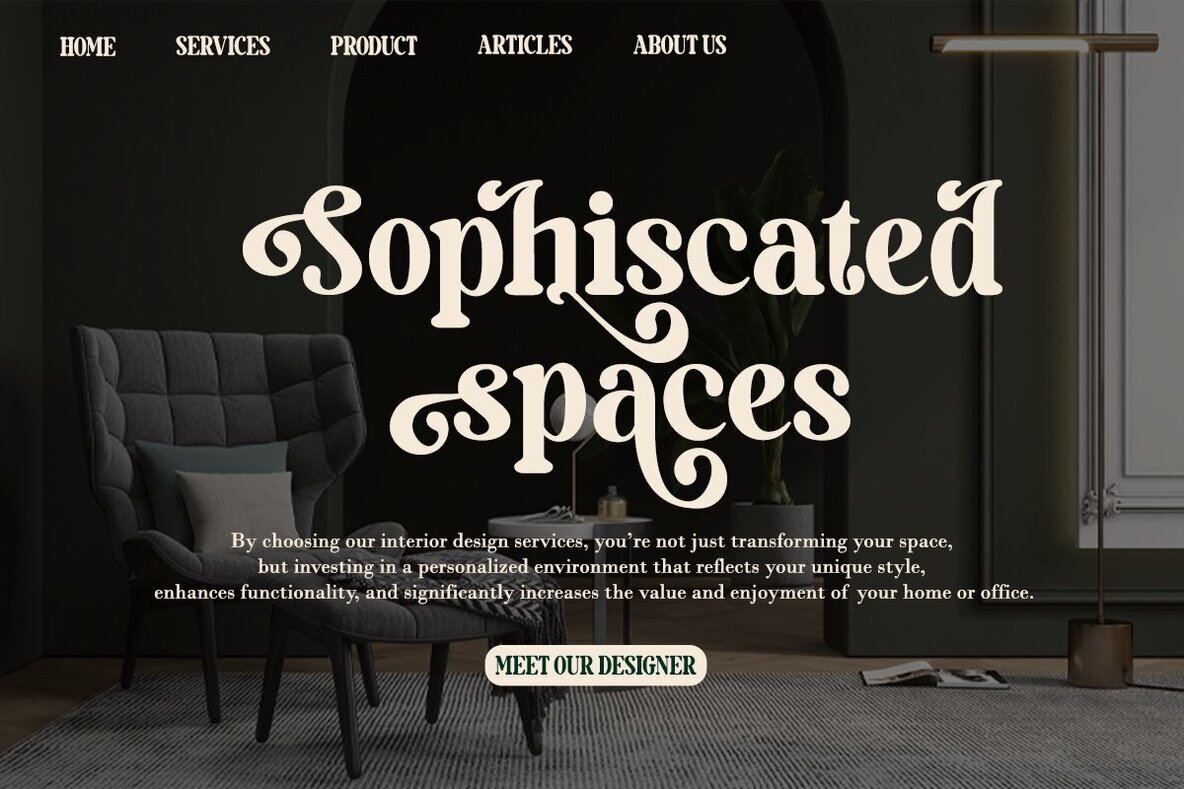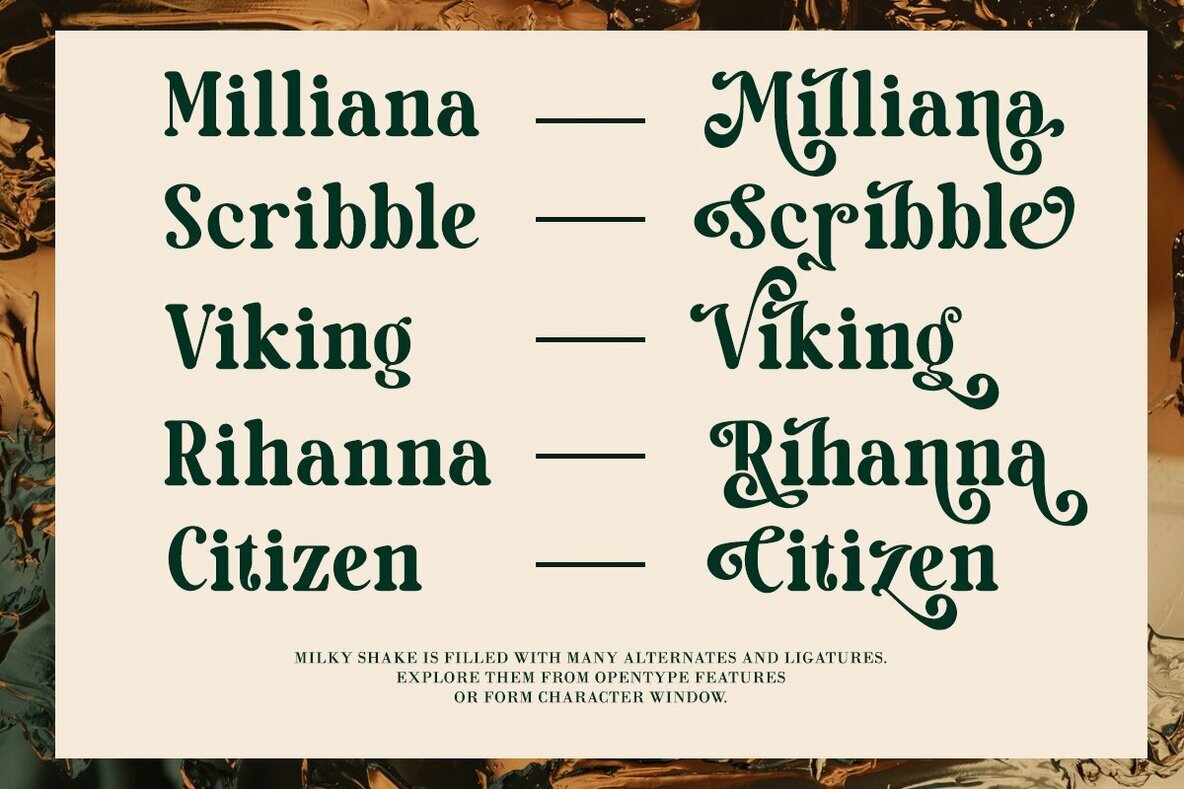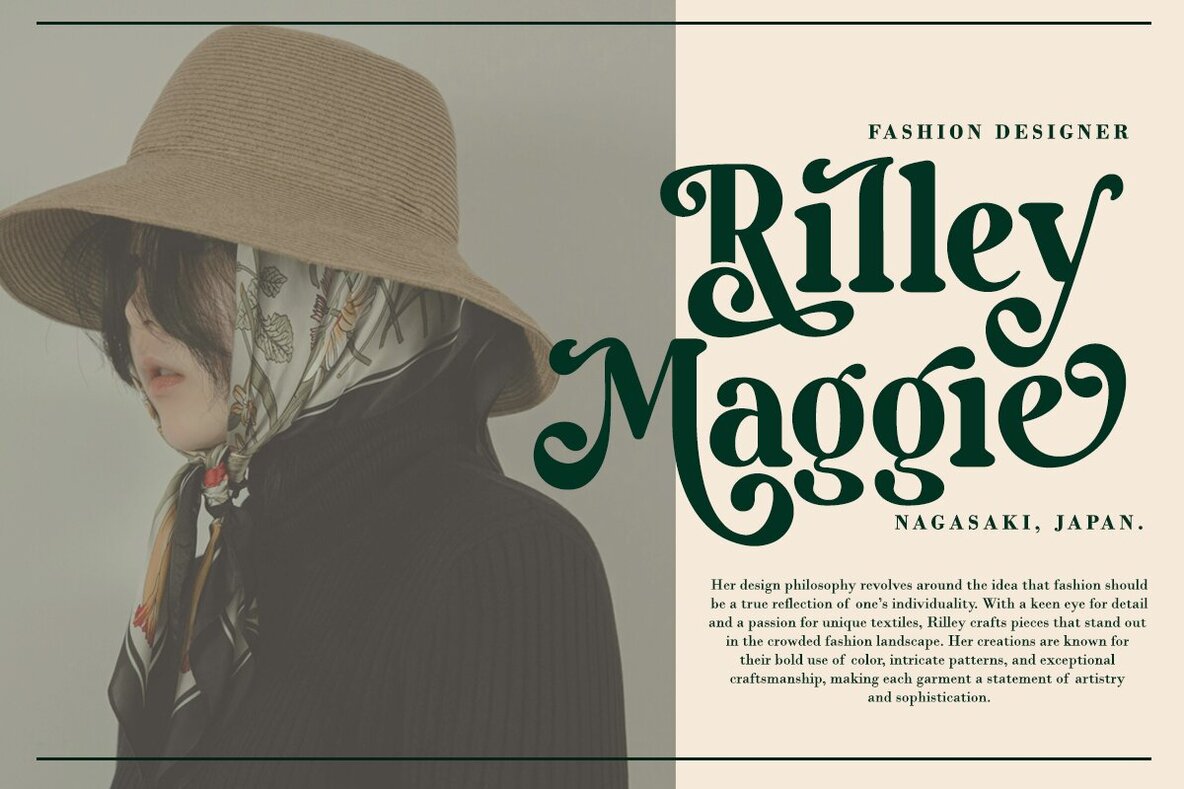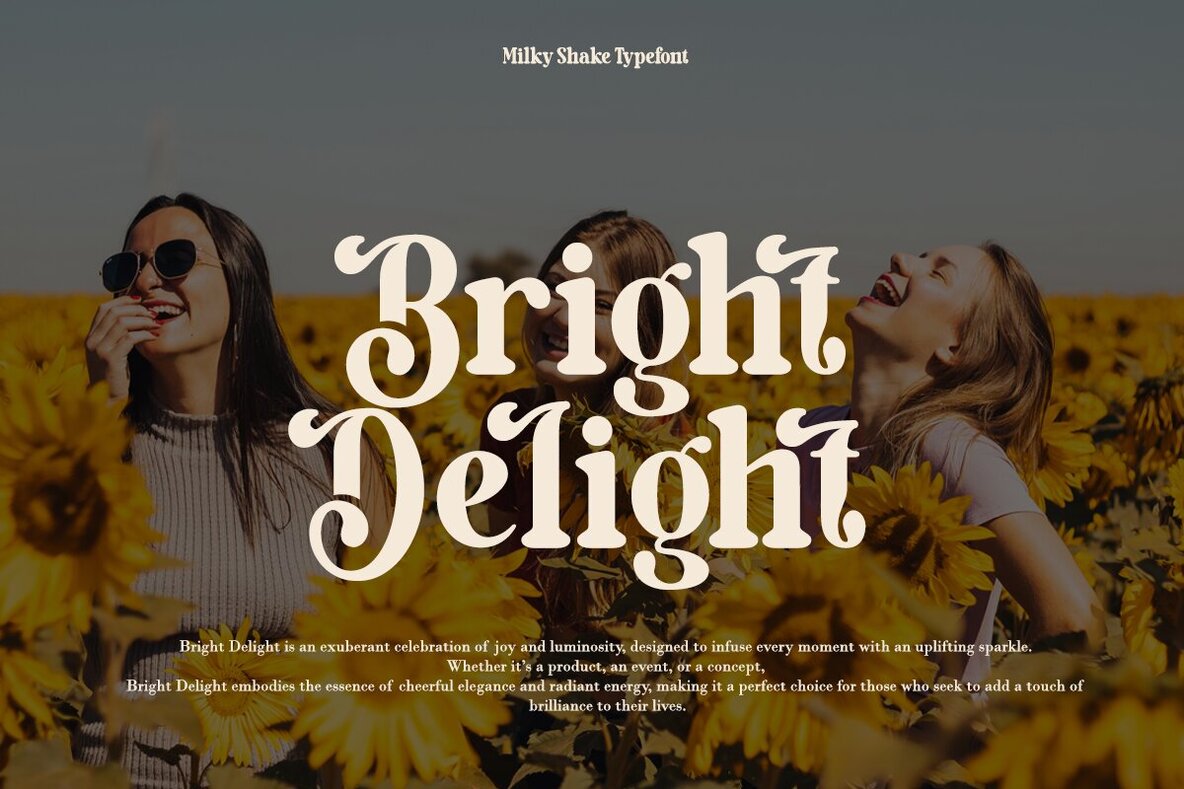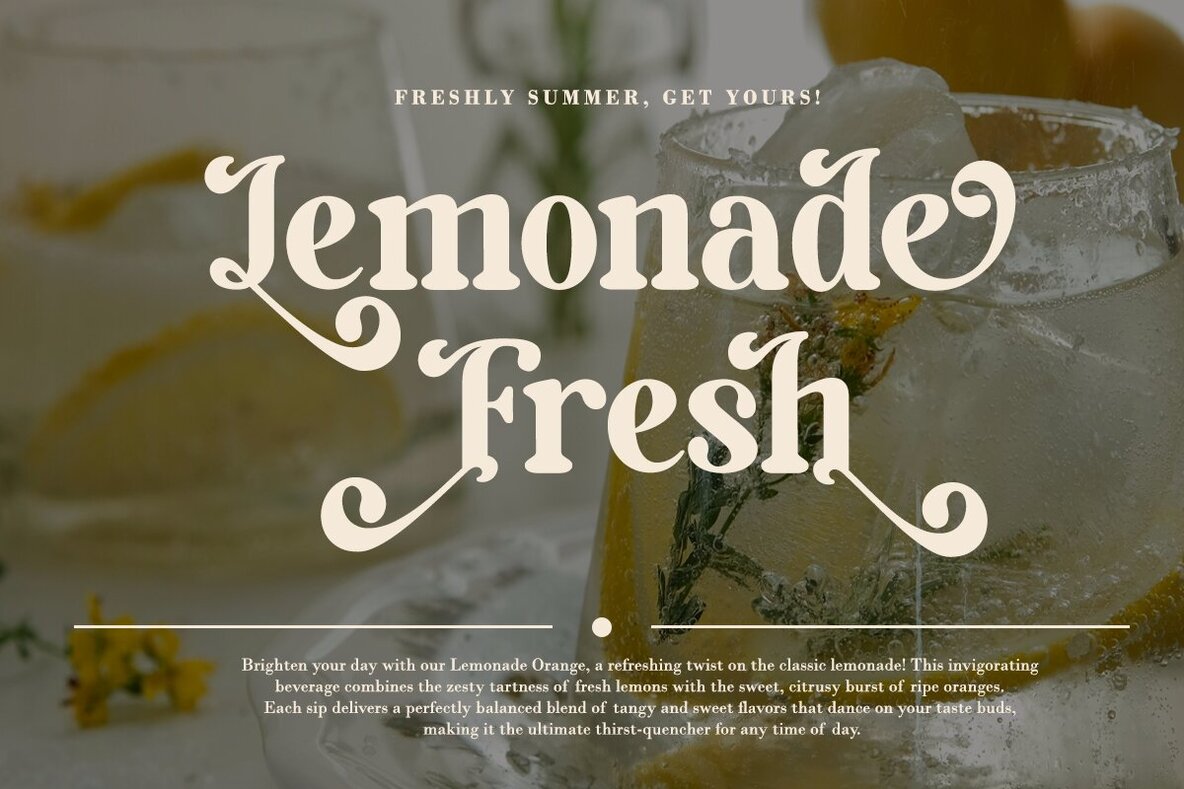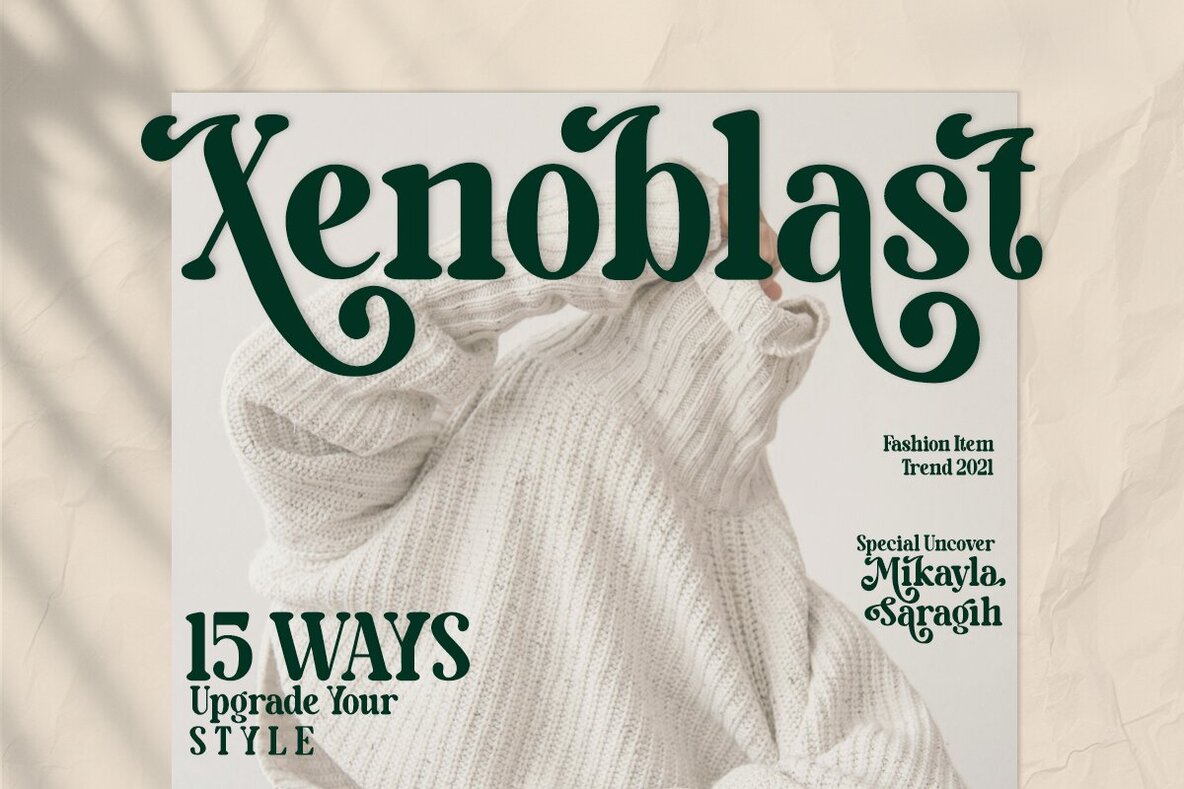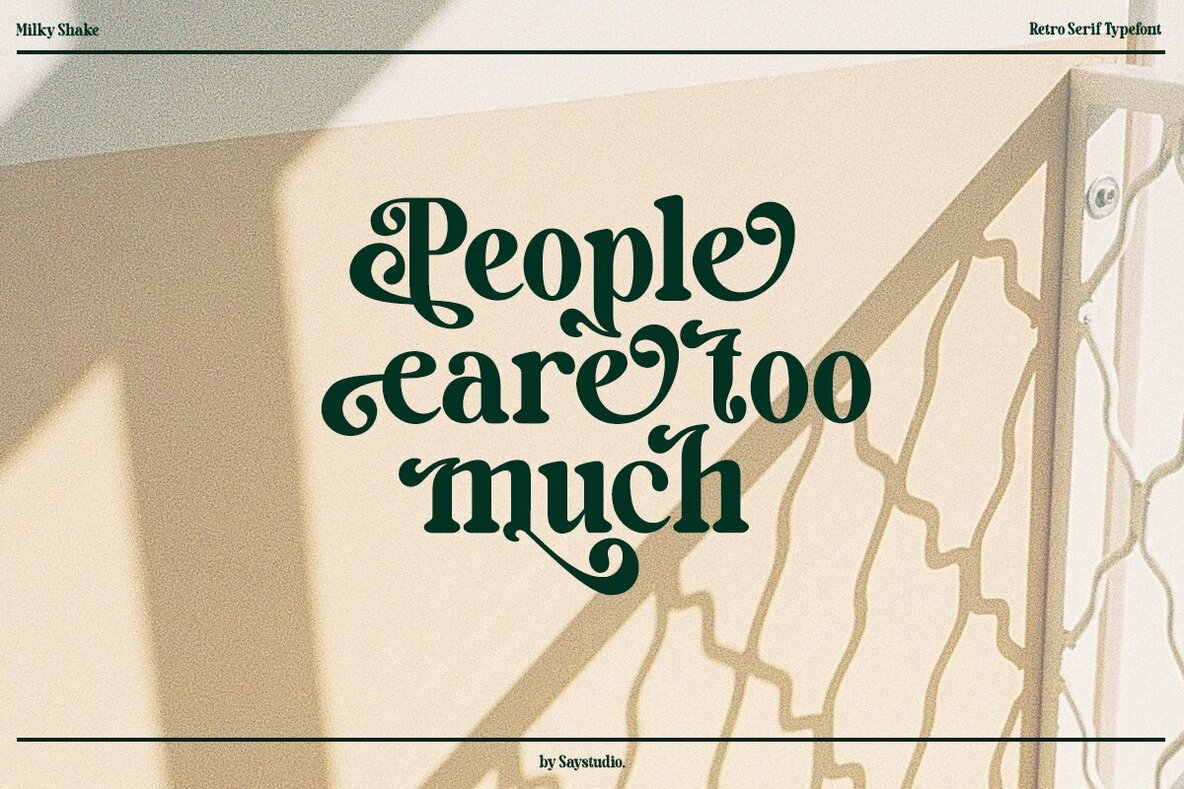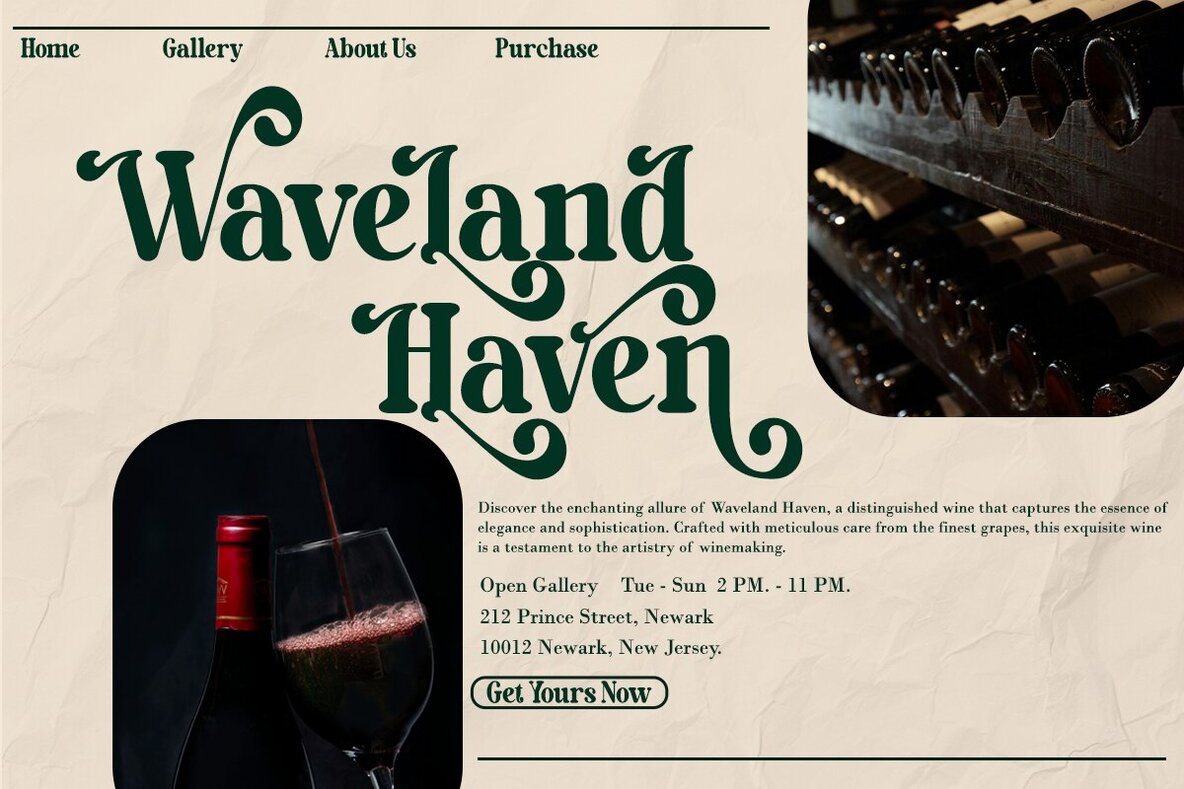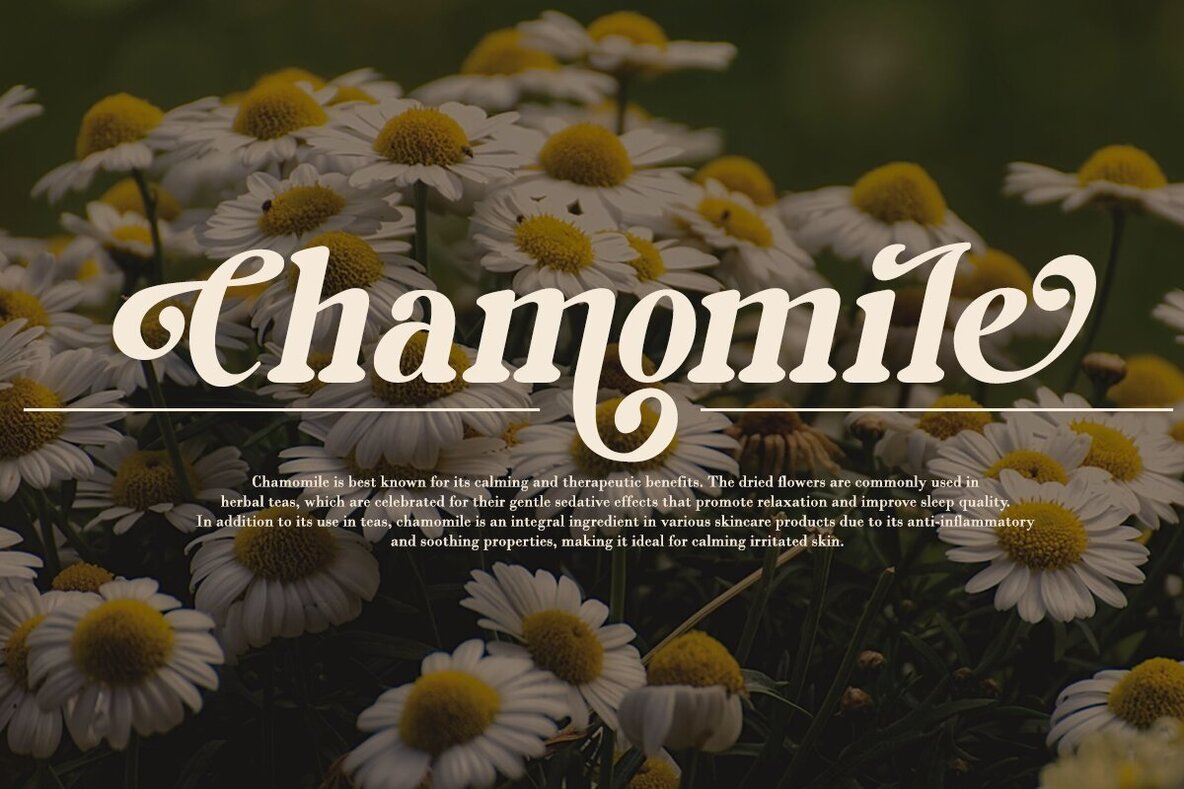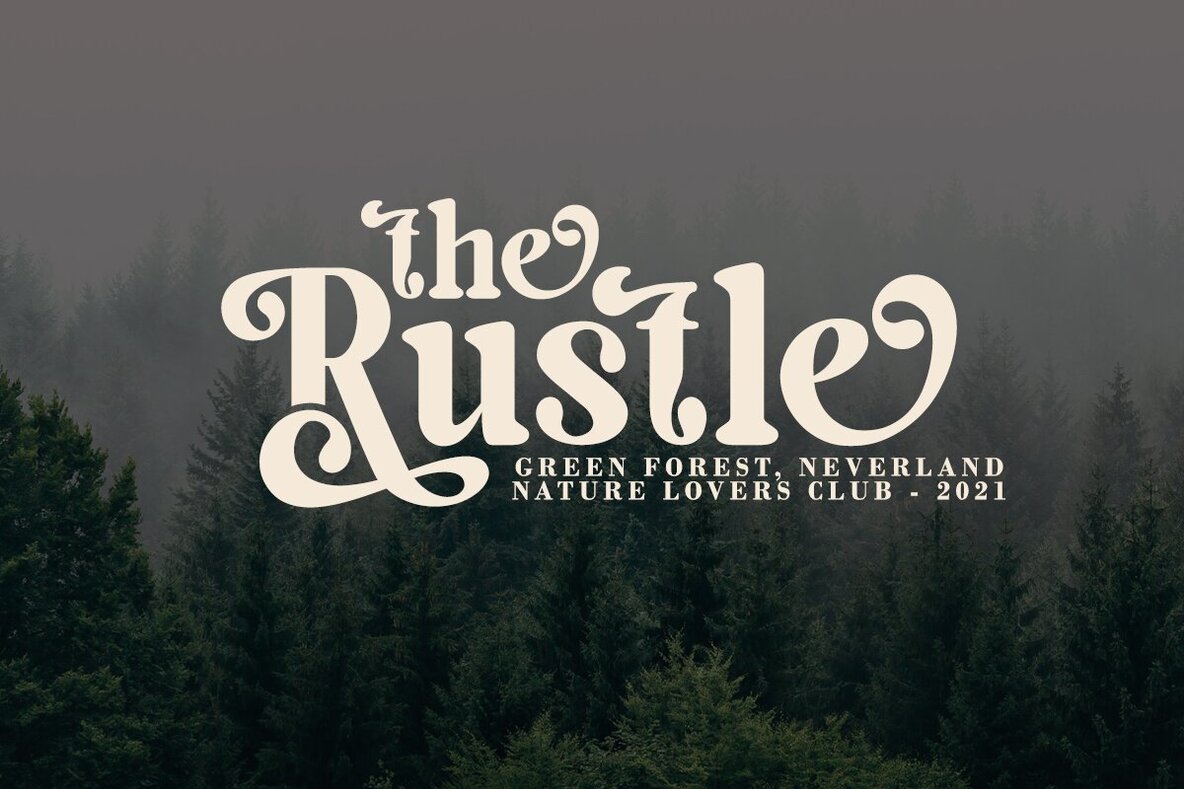
Milky Shake Font
Milky Shake is a retro vintage serif font that brings a playful and nostalgic touch to your designs. Its distinctive vintage aesthetic makes it perfect for adding a special retro vibe to any creative project. This font is versatile and ready for various applications, from logotypes and stickers to packaging designs and Cricut projects. Whether you're designing headlines, brand identities, t-shirts, apparel, posters, magazines, books, or content for YouTube, Instagram, or websites, Milky Shake has you covered.
This serif font is packed with features to enhance your designs. It includes uppercase and lowercase letters, numbers, and punctuation, along with multilingual support to ensure global reach. Additionally, the font is equipped with ligatures and alternates, allowing for creative flexibility in your projects. Enjoy the perfect balance of vintage charm and modern versatility with Milky Shake.